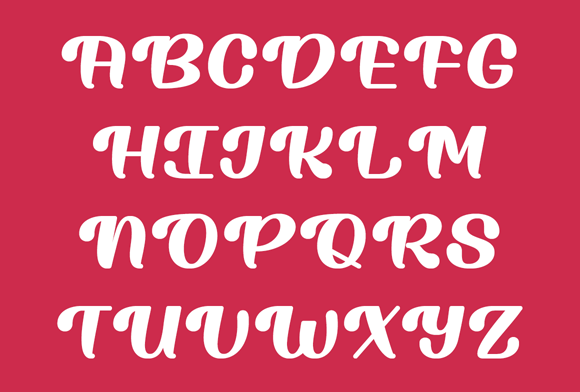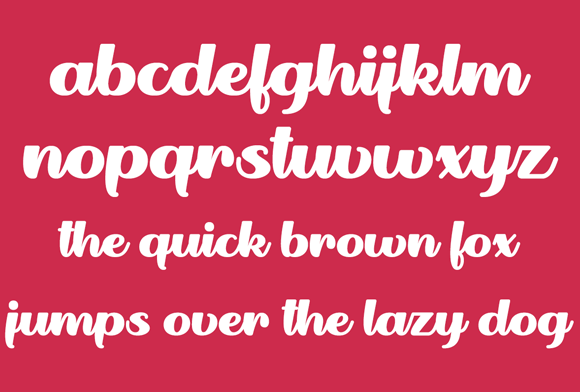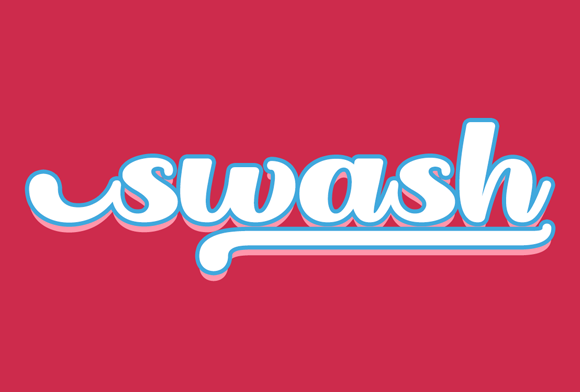
Ridin Dirty Font
About Ridin Dirty Font
Ridin Dirty is a bold typeface that is perfect for logos, product labels, posters, and so much more! Includes swashes in 15 different lengths to add extra style to your projects!